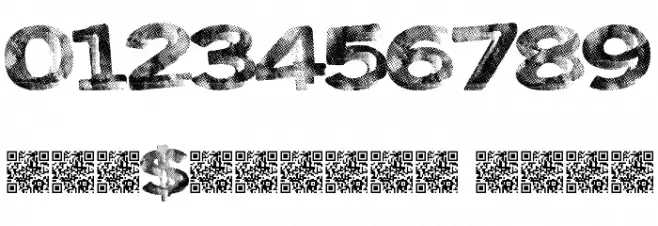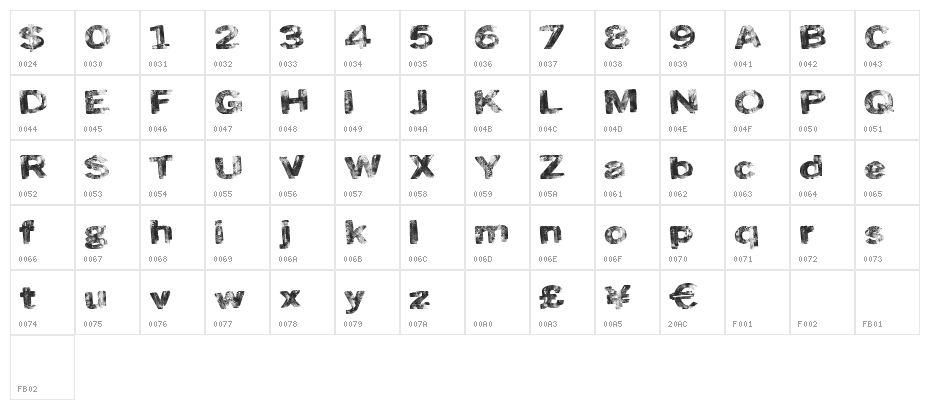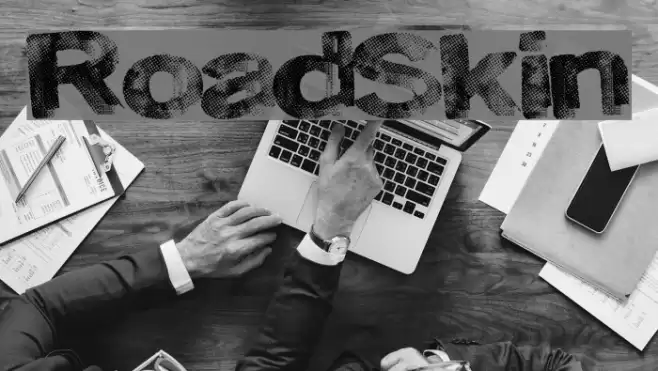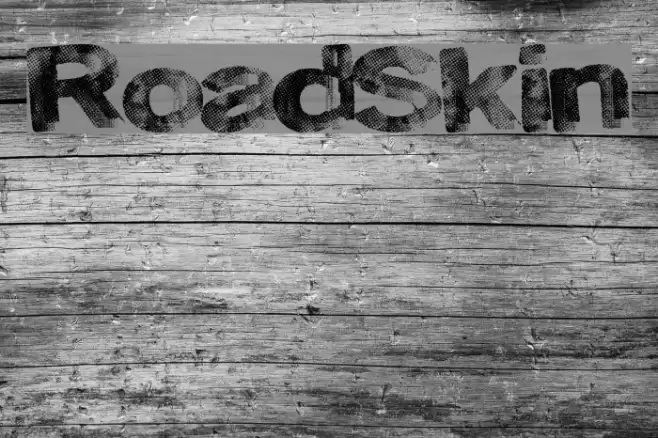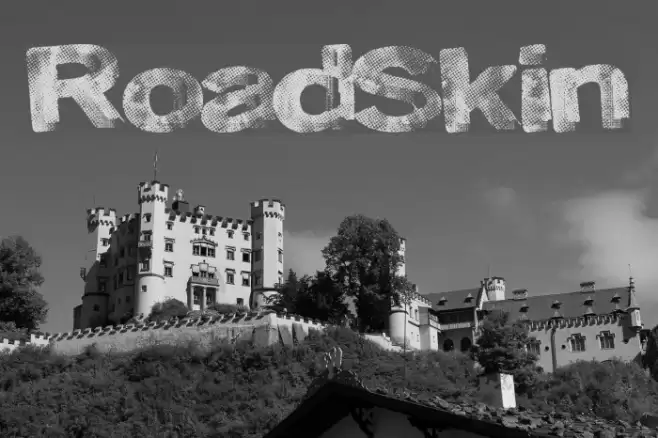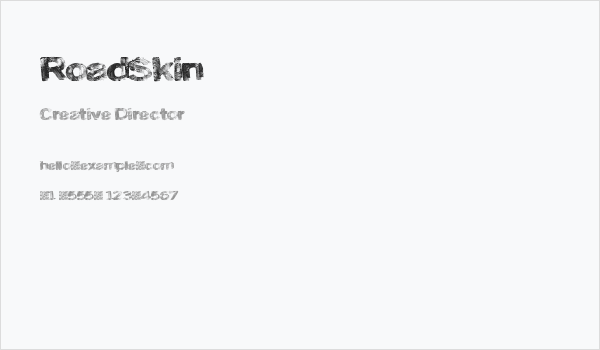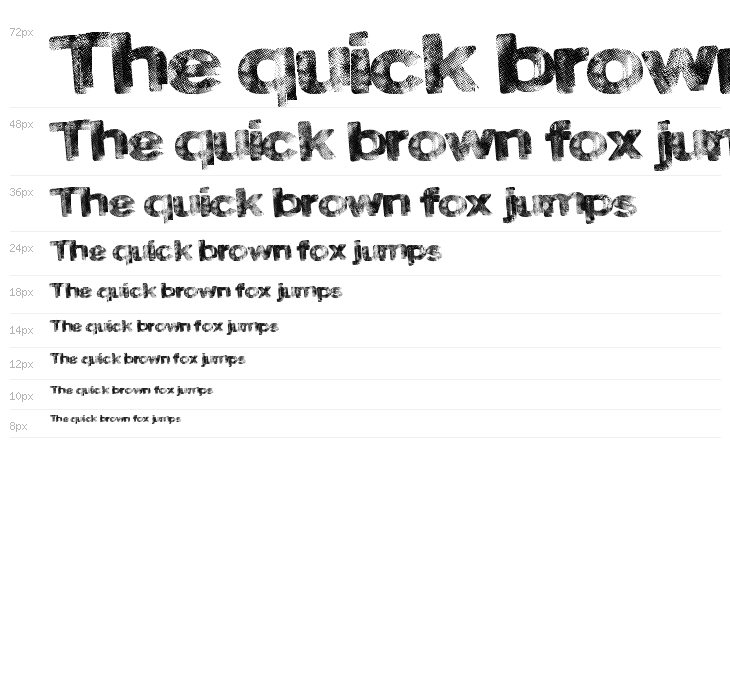
RoadSkin Font
RoadSkin Description
This font features a bold, textured style with a distressed, grunge-like appearance. Each character is filled with a pattern that resembles worn or weathered surfaces, giving it a rugged and edgy look. The uppercase and lowercase letters maintain a consistent weight, while the numbers and special characters follow the same design theme. The font's unique texture adds depth and character, making it stand out in any design. It is ideal for projects that require a bold statement or an urban, industrial feel. The overall style is modern with a touch of vintage, making it versatile for various creative applications.
| Overall Style | Modern, Vintage |
| Proposed Projects | Ideal for posters, album covers, branding, and apparel design. |